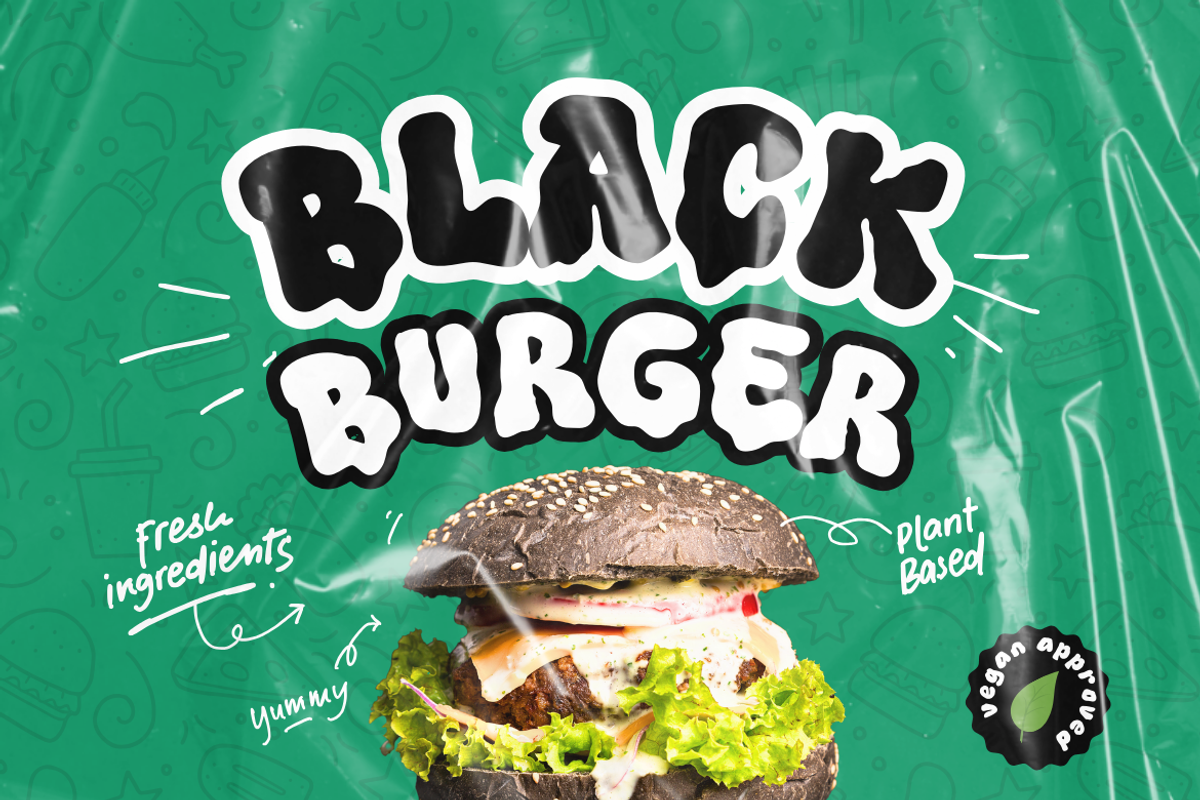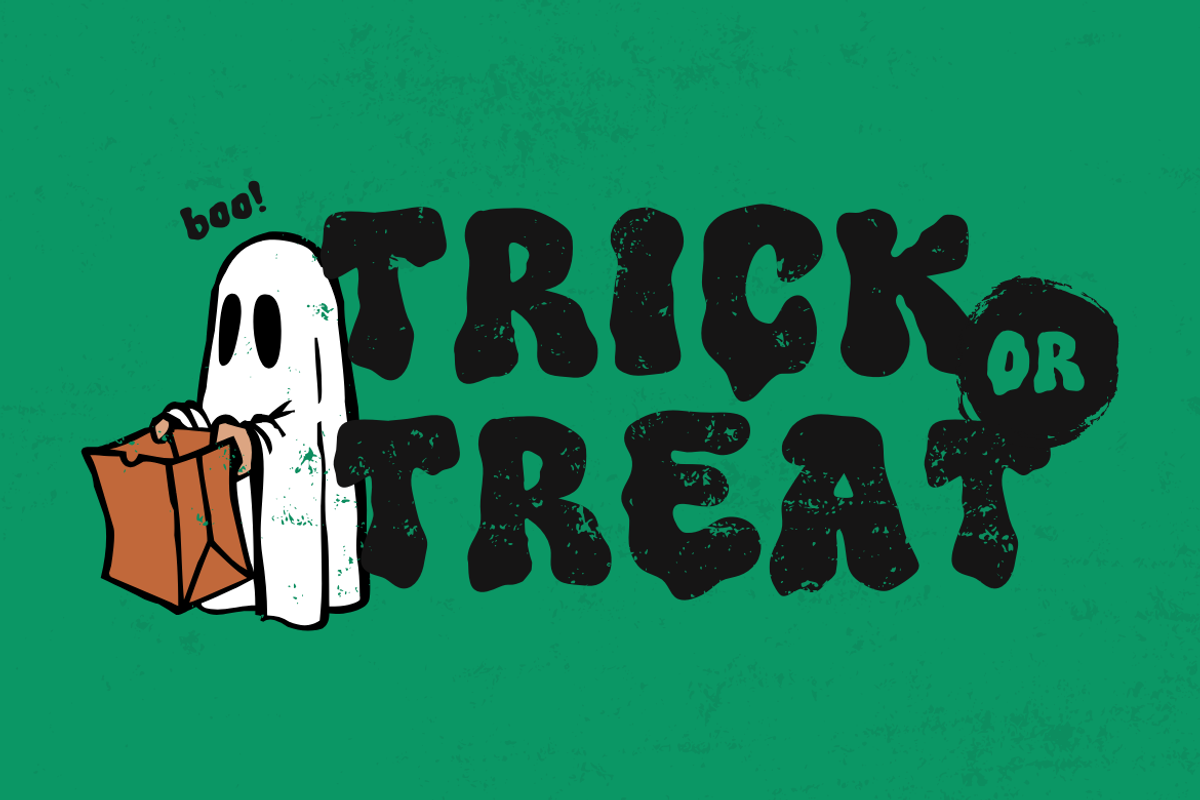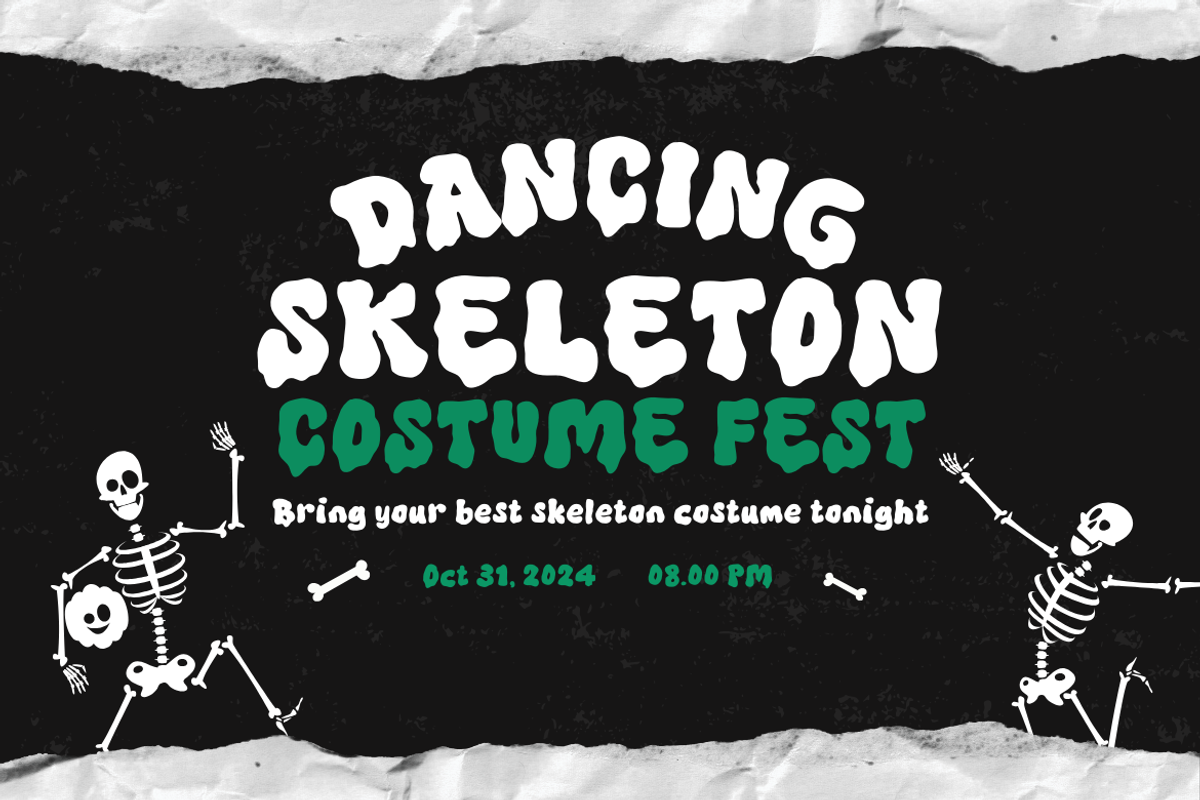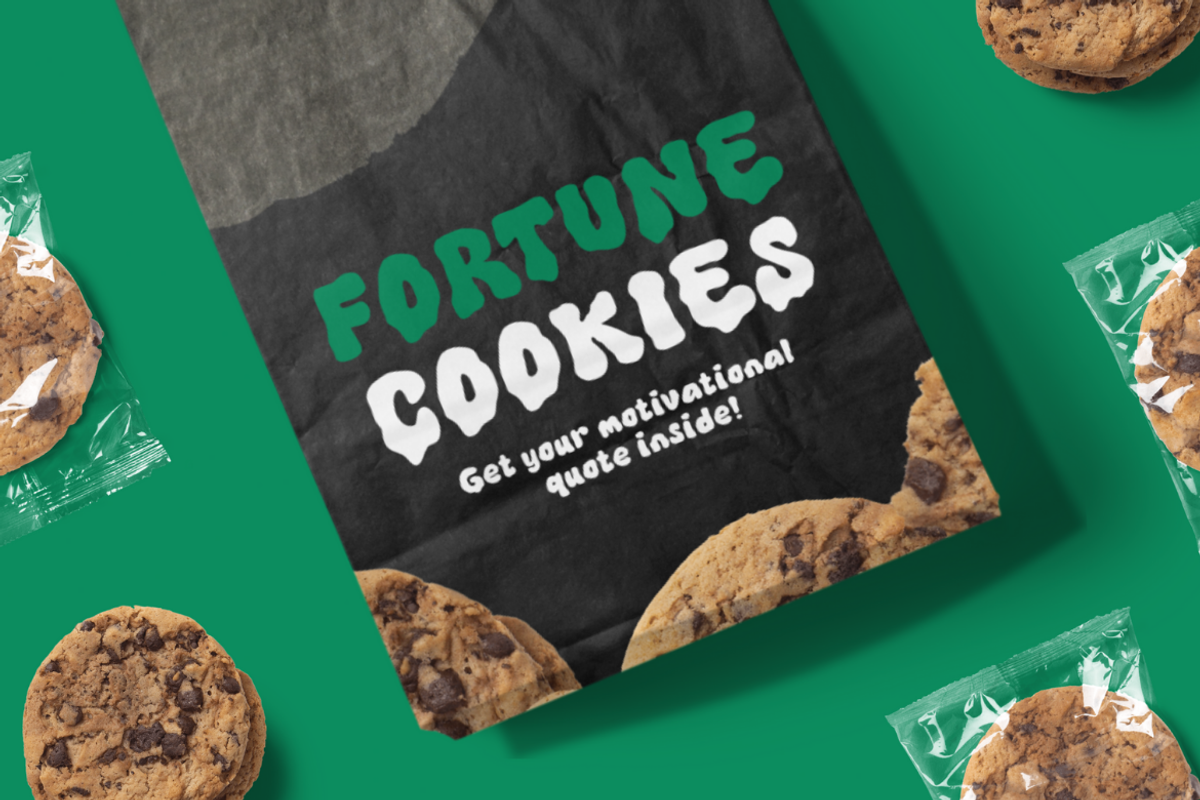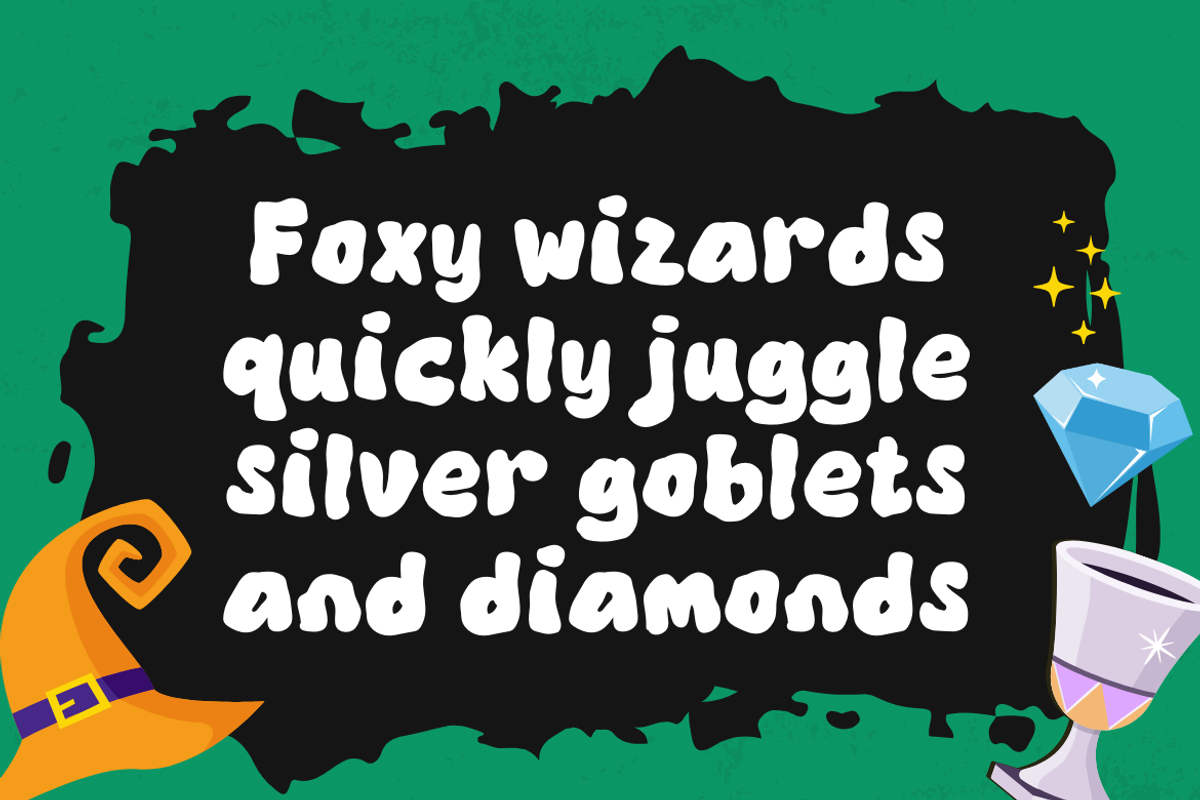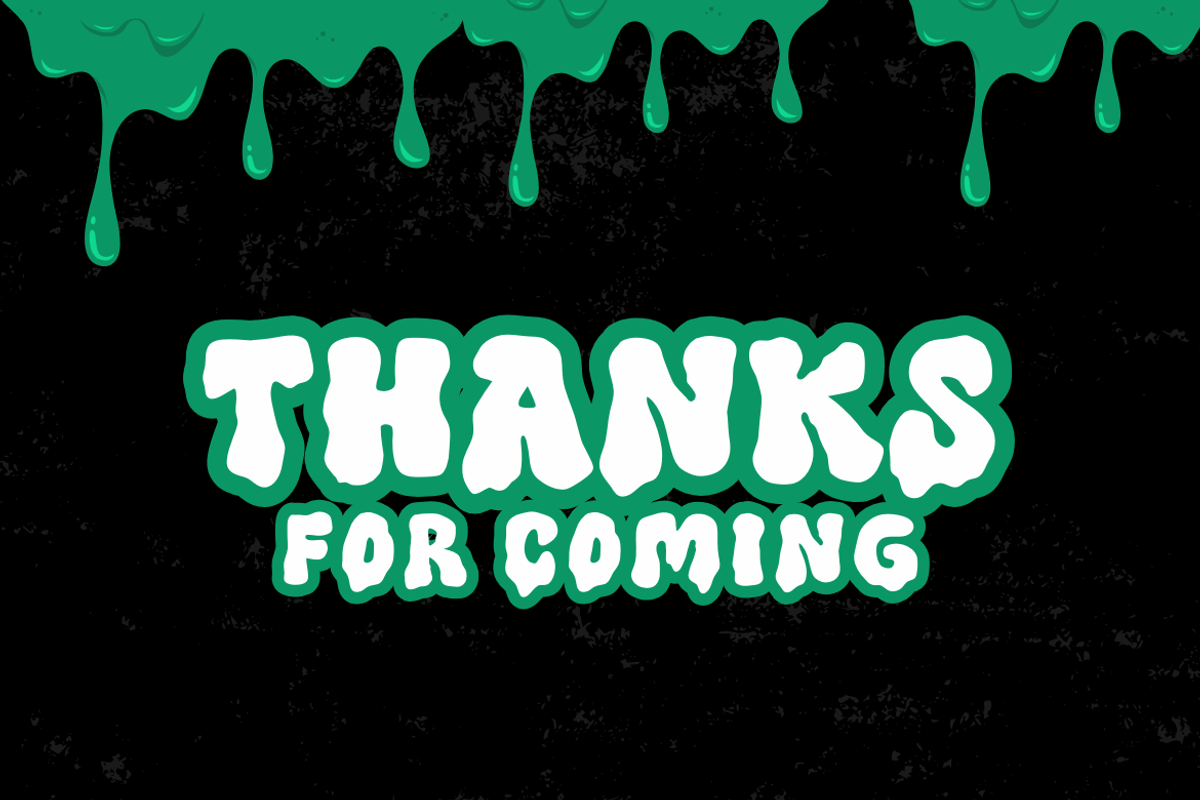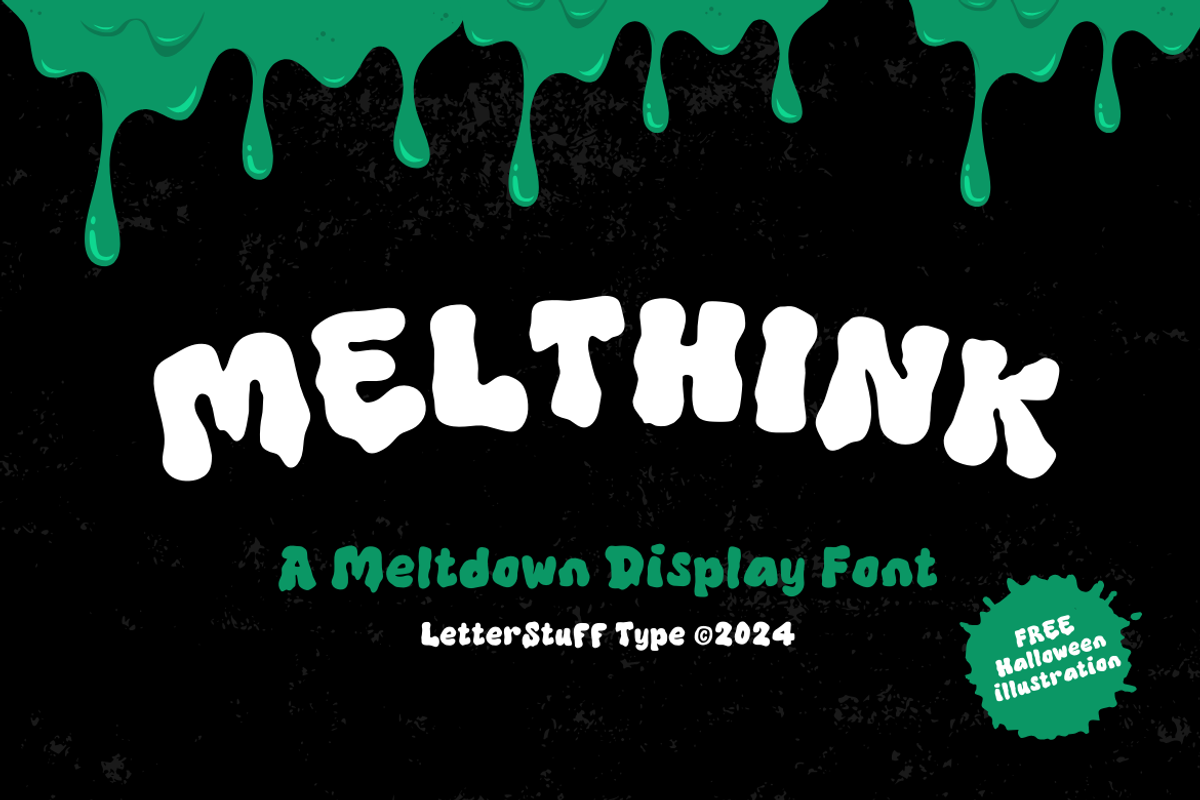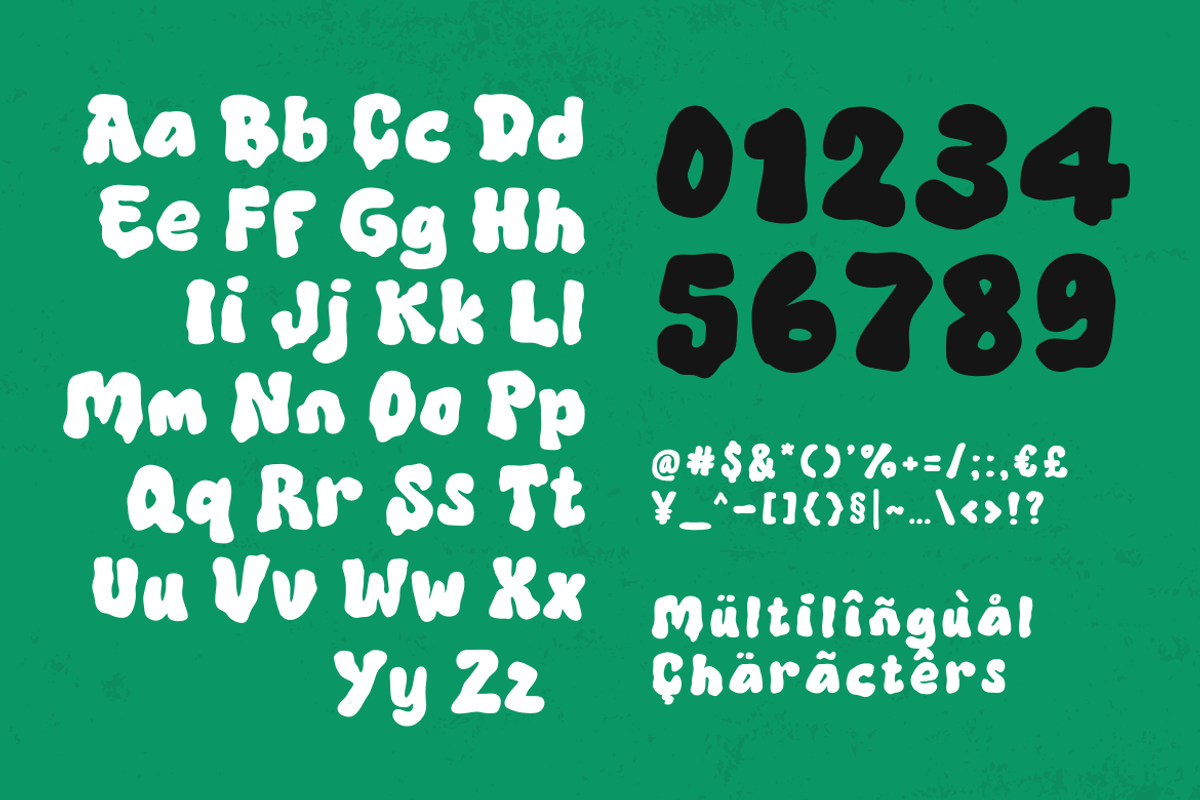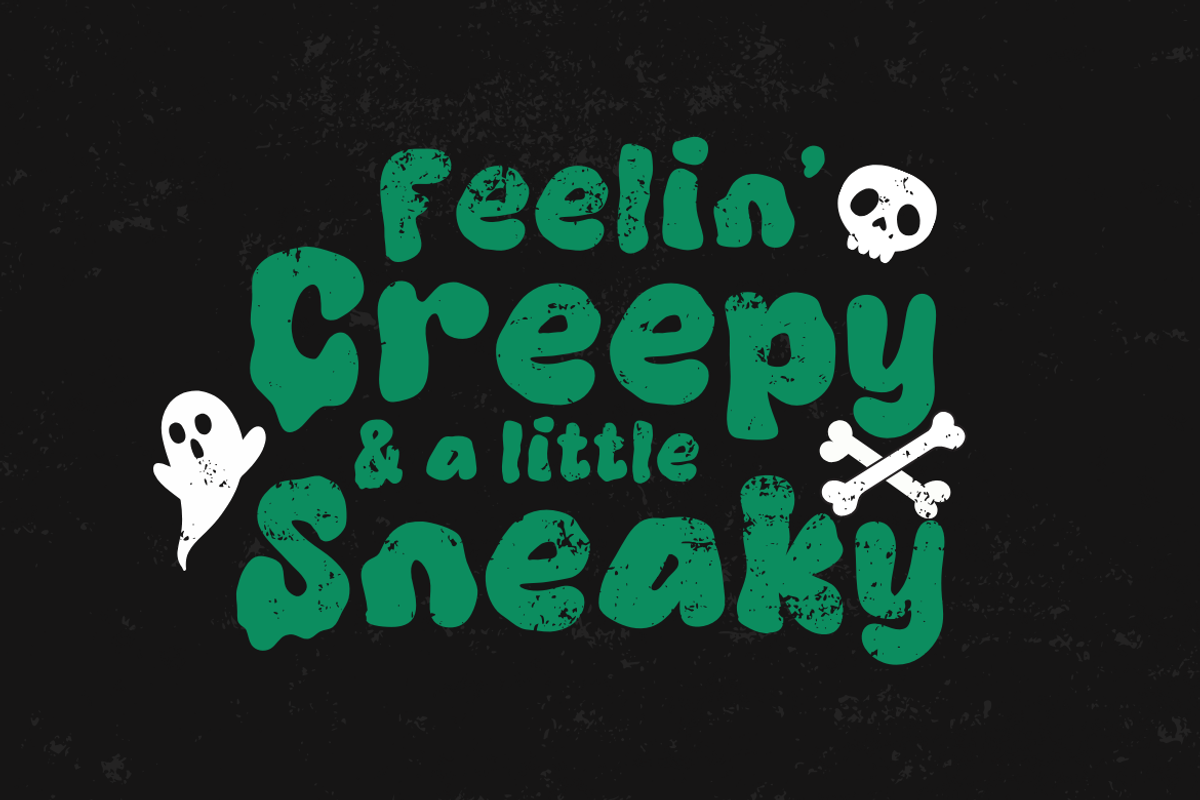
Melthink | Halloween Font
Introducing Melthink, the perfect font for Halloween, captures the eerie charm of the season with its unique meltdown style. This font is ideal for a variety of applications, including posters, invitations, and social media graphics, ensuring your designs truly stand out. Its dripping effect evokes classic horror elements, adding a dramatic flair to any text, while still maintaining high readability. Melthink's aesthetic appeal makes it an excellent choice for creatives looking to infuse an artistic touch into their work.
Melthink can be used in a multitude of ways to enhance your Halloween-themed projects. From crafting ghostly party invitations to designing captivating decorations like banners and labels, this font sets the perfect mood for any event. Additionally, it excels in social media graphics, helping your posts and announcements grab attention. Overall, Melthink combines style and versatility, embodying the spirit of Halloween and making it an unforgettable choice for all your spooky design needs. Features :
- Available style : Regular & Oblique
- Numeral and punctuation